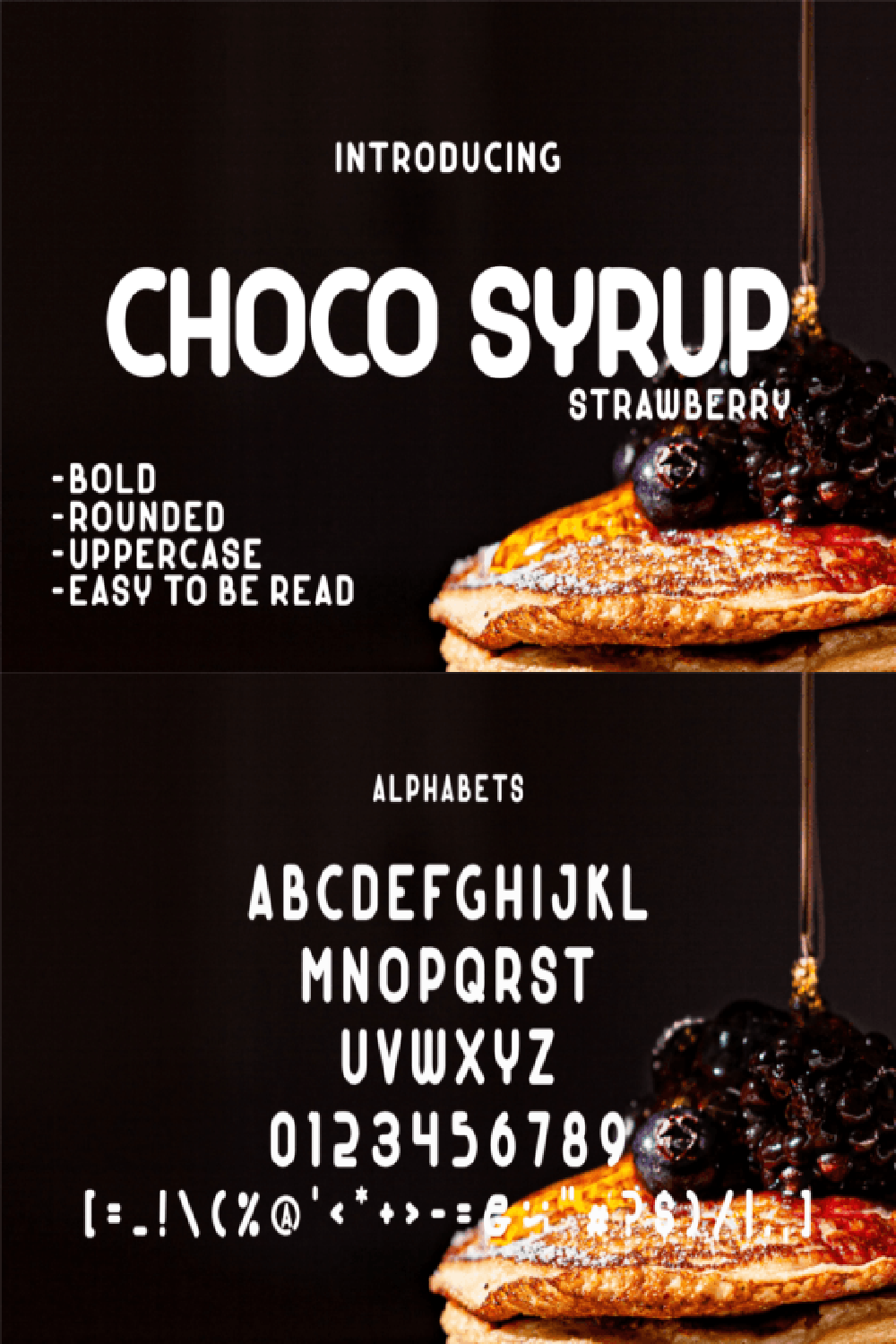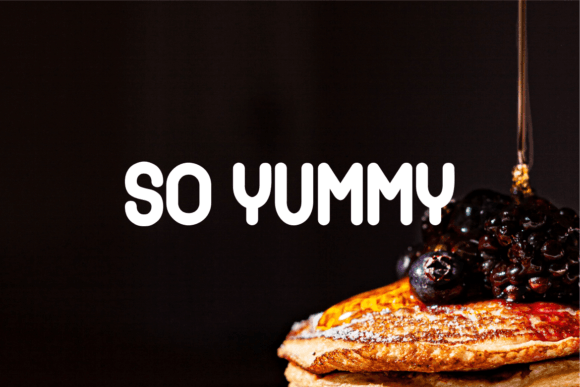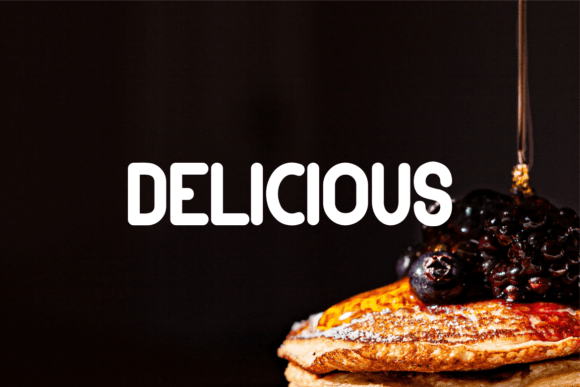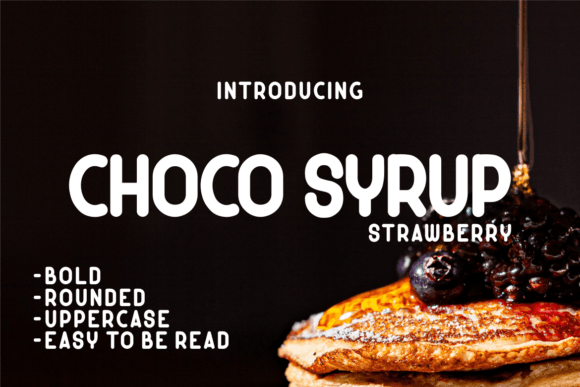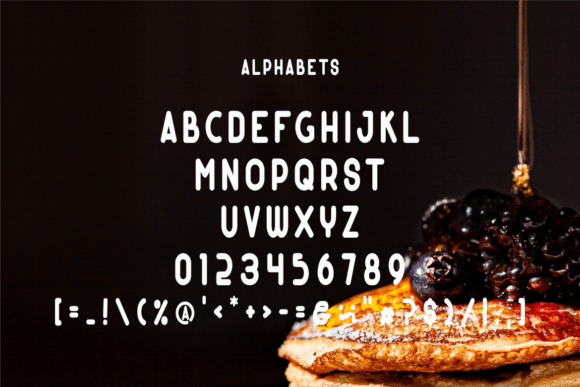
Choco Syrup Strawberry Font
About the Choco Syrup Strawberry Font
Unleash your creativity with Choco Syrup Strawberry Font, a versatile font perfect for a wide range of applications. ” Choco Syrup Strawberry ” is a sans serif font that is bolder and smoother at the edge.
It melts like syrup and honey falling on food.
The products suitable for this font are food and syrups.